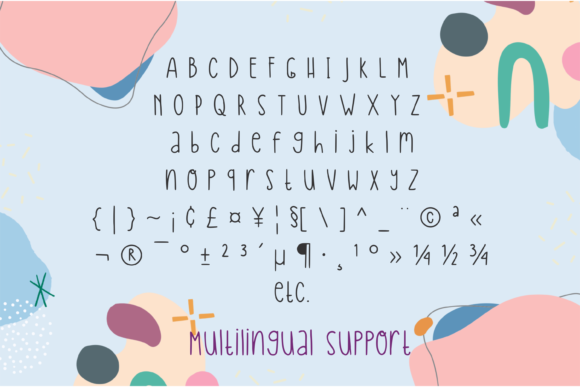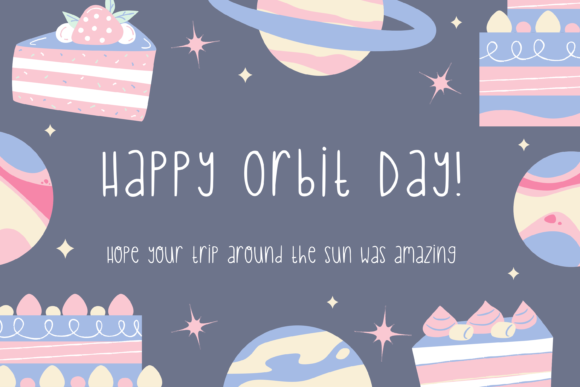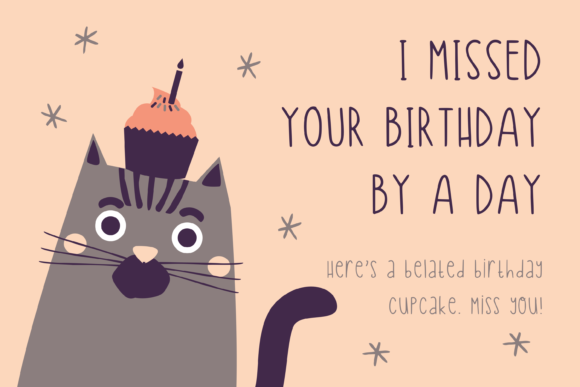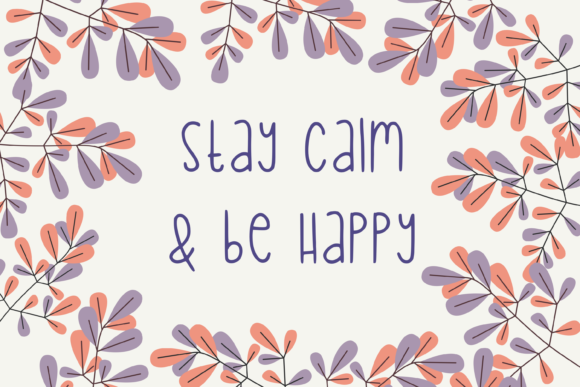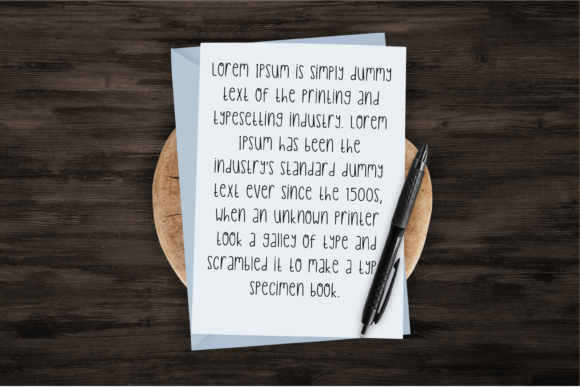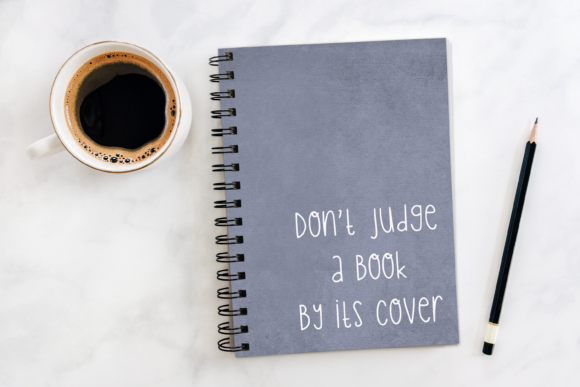
Introduction to Play Groups Font
Remember the moment when you stumbled upon the perfect font for your creative project? The one that instantly elevated your design from good to great? For many designers, that moment is exactly what the Play Groups Font embodies. Its simple, dainty handwritten style has captured the hearts of creatives worldwide, making it an invaluable design resource.
Whether you’re working on a free download project or a commercial design, the Play Groups Font is sure to bring a touch of personality to your work. Its natural and unique style allows for endless possibilities, from adding a personal touch to your blog posts to creating eye-catching social media graphics. With its transparent background, this font is as versatile as it is beautiful.
As a high-quality design resource, the Play Groups Font is a must-have for any designer looking to add some flair to their work. So, why settle for an ordinary font when you can have a font that’s truly one-of-a-kind?
Key Features of Play Groups Font
- High-quality, unique design perfect for creative projects
- Supports a wide range of languages and characters for global design
- Perfect design resource for artists, designers, and writers
Honest Review: Play Groups Font
I recently came across the Play Groups Font and I’m excited to share my honest review with you. This free download is perfect for any creative project that requires a unique and eye-catching font.
Here’s what I love about the Play Groups Font:
- ✨ High quality design that’s perfect for various applications
- ✨ Includes a range of fun and playful characters that are great for adding personality to your design
- ✨ Transparent background, making it easy to use with any color scheme or design element
- ⚠️ Limited number of font weights and styles, which may limit its versatility
- ⚠️ Not ideal for professional or formal projects, as it may come across as too playful
Overall, I think the Play Groups Font is a great addition to any design resource library. It’s perfect for personal projects or creative endeavors where you want to add a fun and playful touch. While it may not be suitable for every project, it’s definitely worth checking out if you’re looking for a high-quality, free font download.
Tips for Getting the Most Out of Play Groups Font
To get the most out of the Play Groups Font, use it for creative projects that require a fun and playful touch. This font is ideal for designing children’s products, party invitations, and social media graphics. Experiment with different font sizes, colors, and styles to add visual interest to your design.
Common Use Cases for Play Groups Font
The Play Groups Font is commonly used for designing children’s products, party invitations, and social media graphics. It’s also ideal for creating transparent overlays for images and adding a playful touch to presentations and documents.